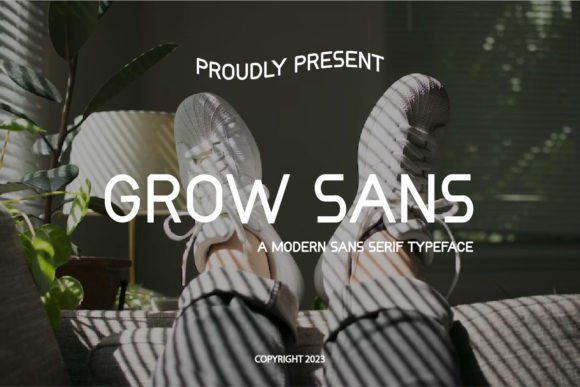
**Growsans: The Font of Distinction for Your Visual Masterpieces**
In the realm of visual communication, where words dance and images speak, the font you choose holds the power to elevate your message and captivate your audience. Introducing Growsans, a sans serif font that embodies modern elegance and undeniable style.
Crafted by the visionary designers of Masyafi Studio, Growsans is a minimalist masterpiece, its monoline shape adorned with a touch of contemporary sophistication. Its clean lines and unwavering structure evoke a sense of precision and modernity, making it an ideal choice for branding, logos, and any design project that demands impact.
But Growsans is not merely a font; it's an expression of your unique vision. Whether you're crafting a captivating book cover, designing a striking poster, or creating a logo that will leave an unforgettable impression, Growsans empowers you to communicate your message with clarity, confidence, and a touch of undeniable flair.
With its versatility and timeless appeal, Growsans is the perfect font for any creative endeavor. From photography and embellishments to headlines and titles, this font seamlessly adapts to your needs, adding a touch of elegance and sophistication to every project.
So, whether you're an artist, a designer, or simply someone who appreciates the power of beautiful typography, discover the world of Growsans today. Let this exceptional font be your canvas, and watch as your creations blossom into visual masterpieces that captivate and inspire.